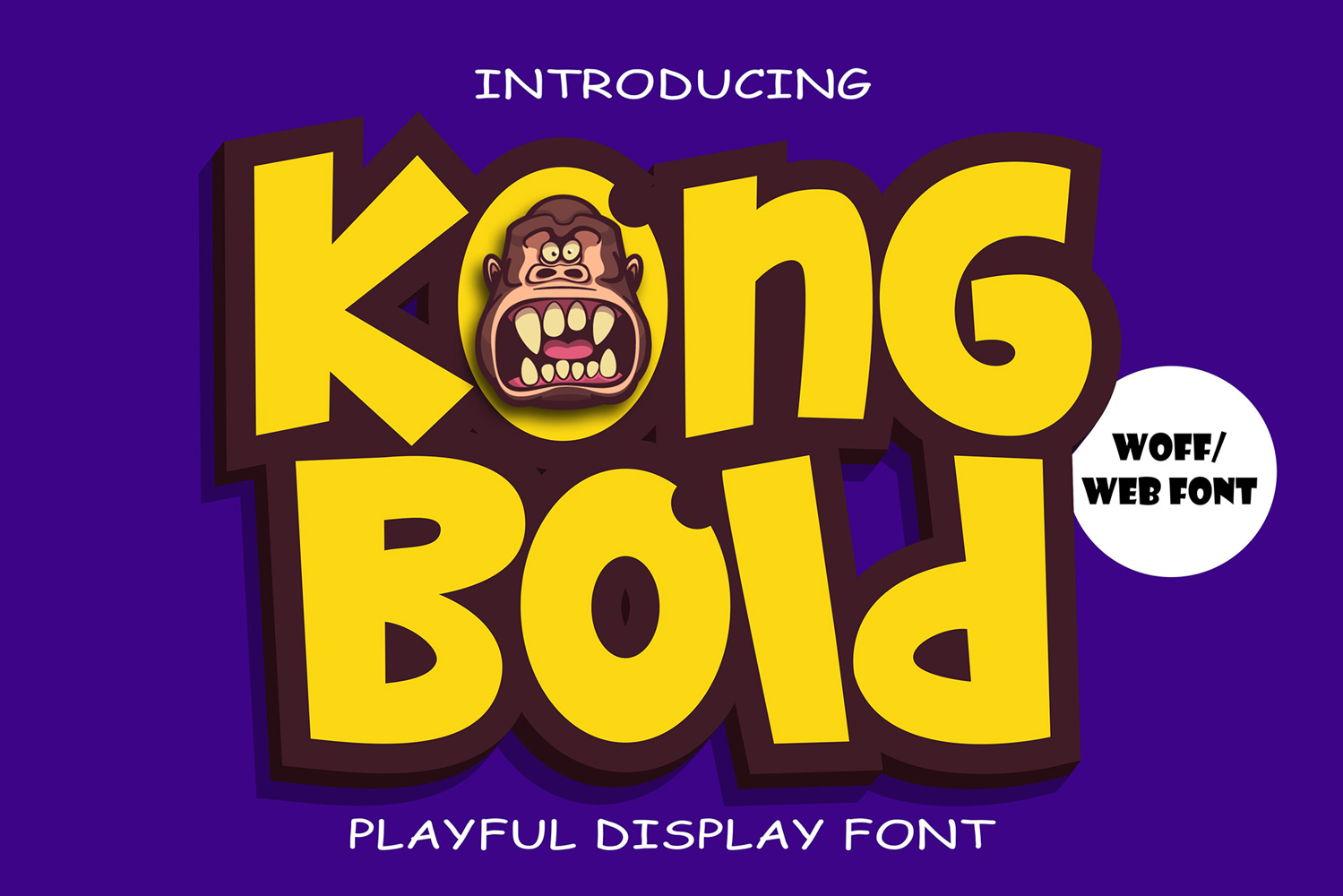
Kong Bold | Playful Bold Display Webfont WOFF
Kong Bold is a playful webfont that brings energy and humor to your digital designs. Featuring bold, chunky letters with a cartoon-inspired style, this font is ideal for websites, online games, creative portfolios, and kids’ digital projects. Its fun and lively character makes text stand out with personality and joy.
Optimized for web use, Kong Bold ensures smooth and sharp rendering across all screen sizes. Perfect for designers who want to create engaging and colorful websites with a modern yet playful display typeface.